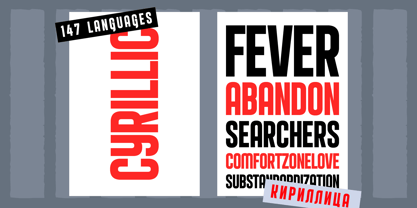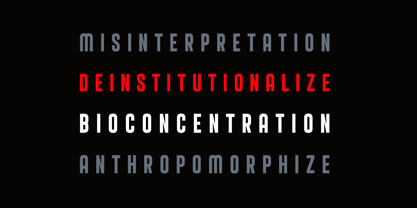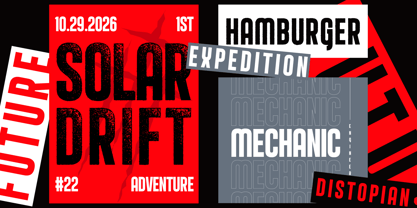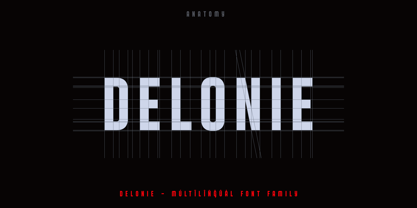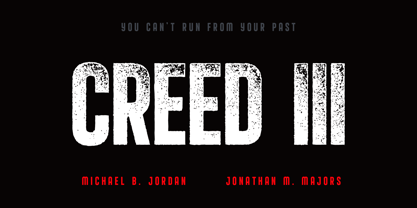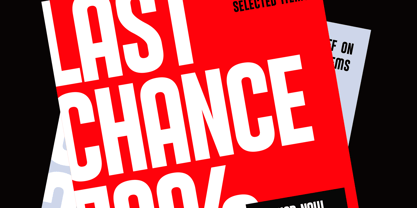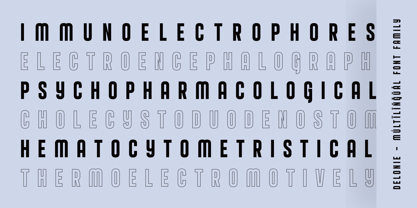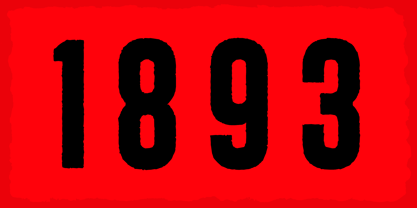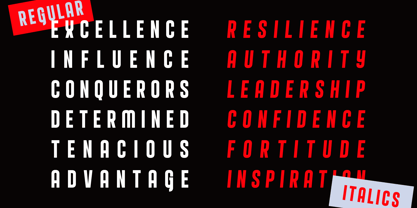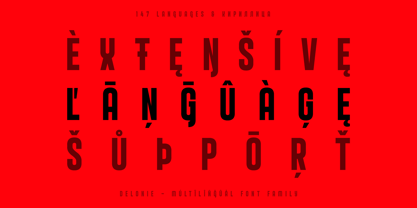
Delonie
by AlperCakici
The Delonie Font Family was designed by Alper Çakıcı and published by AlperCakici. Delonie contains 12 styles and family package options. More about this family
Delonie is a confident geometric sans that fuses modern precision with a bold creative spirit. Designed for designers who demand clarity, balance, and attitude, it delivers clean lines, smooth curves, and a timeless structure that shines in any setting — from branding to bold display work. This contemporary type family includes 12 crafted styles built around a single refined weight. Each variant — from Regular, Italic, Press, and Rough to Rounded, Stroke, and their Italic companions — offers a unique texture and tone while maintaining consistent geometry and visual harmony. With support for 147 languages, including full Cyrillic coverage, Delonie ensures your message travels beautifully across cultures and mediums. ✨ What’s Inside: • 12 styles — Regular, Italic, Press, Press Italic, Rough, Rough Italic, Rounded, Rounded Italic, Stroke, Stroke Italic, Rounded Stroke, and Rounded Stroke Italic • Geometric construction with clean, modern proportions • Perfect for logos, posters, packaging, and editorial design • Smooth kerning, refined spacing, and sharp detailing for professional typography • Ideal for creating strong, modern, and timeless identities Delonie combines precision with personality — a versatile geometric font family built to make every word look effortlessly sharp and confident. Whether in print or digital form, it’s crafted to stand out and leave a lasting impression.